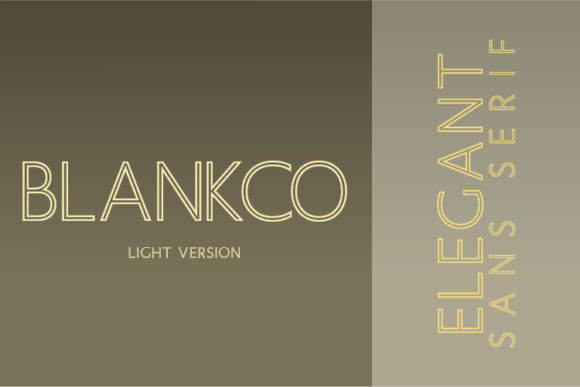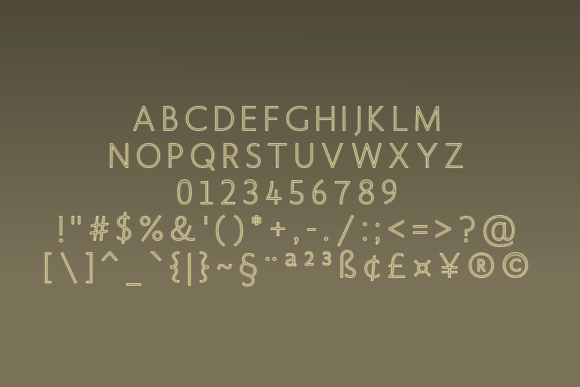
Blankco Outline Light Font
About Blankco Outline Light Font
Blankco Outline is a fresh, geometric, sans-serif font. Blankco has a big x-height value, geometrical letterforms, sharp edges and a small stroke contrast, similar to the neo-grotesk fonts of the 20th Century. The typeface is extremely versatile and can be used in magazines, posters, branding, websites and much more!